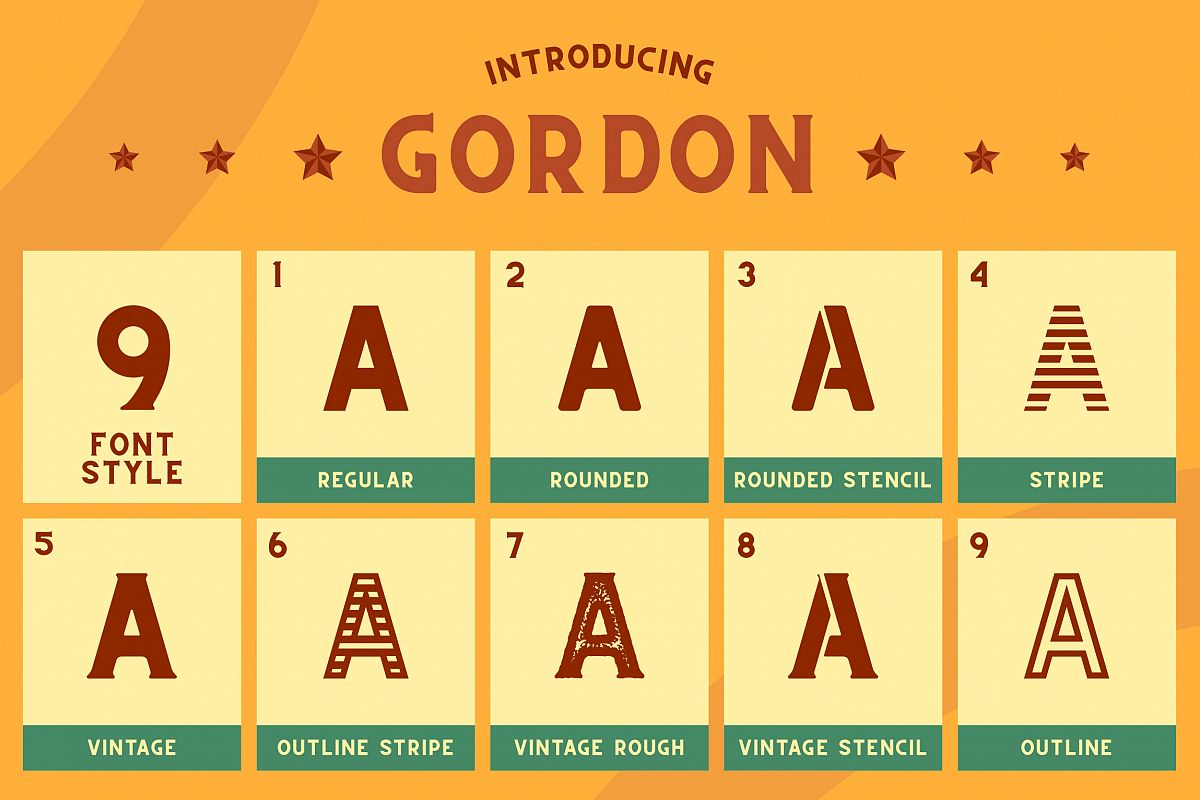
CS Gordon Font Family
CS Gordon Outline
CS Gordon Regular
CS Gordon Rounded Stencil
CS Gordon Strip
CS Gordon Rounded
CS Gordon Vintage Stencil
CS Gordon Vintage
CS Gordon Strip Outline
CS Gordon Vintage Rough
Introducing CS Gordon Font Family includes 9 Style Fonts. It can be used to create almost all types of design projects like print materials. Just use your imagination and your project will become more alive and vivid than ever with one of the CS Gordon Font Family.
You want to make a greeting card or a package design, or even a brand identity, craft design, any DIY project, book title, wedding font, pop vintage design, retro design or any purpose to make your art / design project look pretty and trendy? Feel free to play with all the patterns and shape!
1. CS Gordon Regular
2. CS Gordon Outline
3. CS Gordon Rounded
4. CS Gordon Rounded Stencil
5. CS Gordon Strip
6. CS Gordon Strip Outline
7. CS Gordon Vintage
8. CS Gordon Vintage Rough
9. CS Gordon Vintage Stencil
CS Gordon Font Family